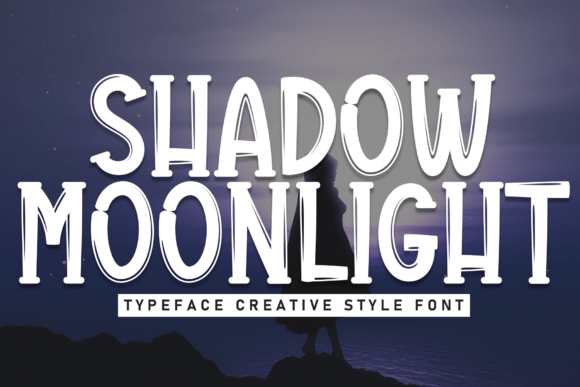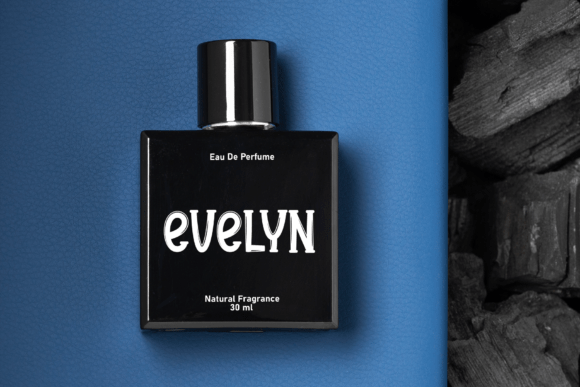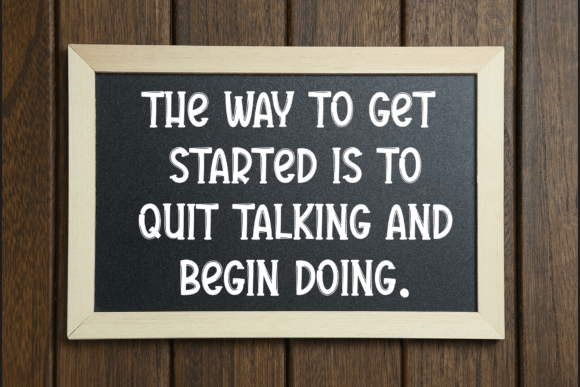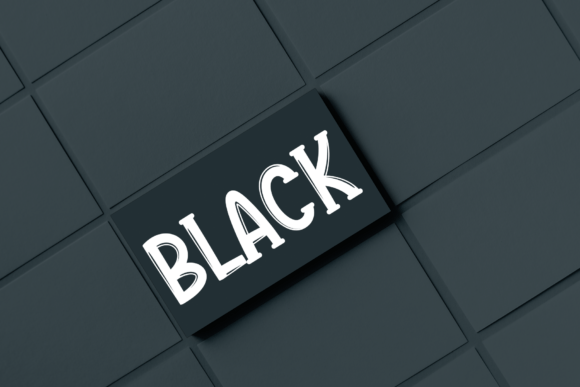
Shadow Moonlight Font: A Dreamy Display Font for Creative Branding
About the Shadow Moonlight Font
Step up your design game with Shadow Moonlight Font, a font that exudes confidence and style. Shadow Moonlight is a whimsical and eye-catching display font with a charming handcrafted style. Its playful curves and bold presence make it perfect for projects that need a magical or dreamy vibe—ideal for book covers, fantasy titles, branding, posters, and creative merchandise. The soft shadow effect adds depth, giving your designs a striking yet friendly touch.
Shadow Moonlight Font Usage Examples
Shadow Moonlight Font Example